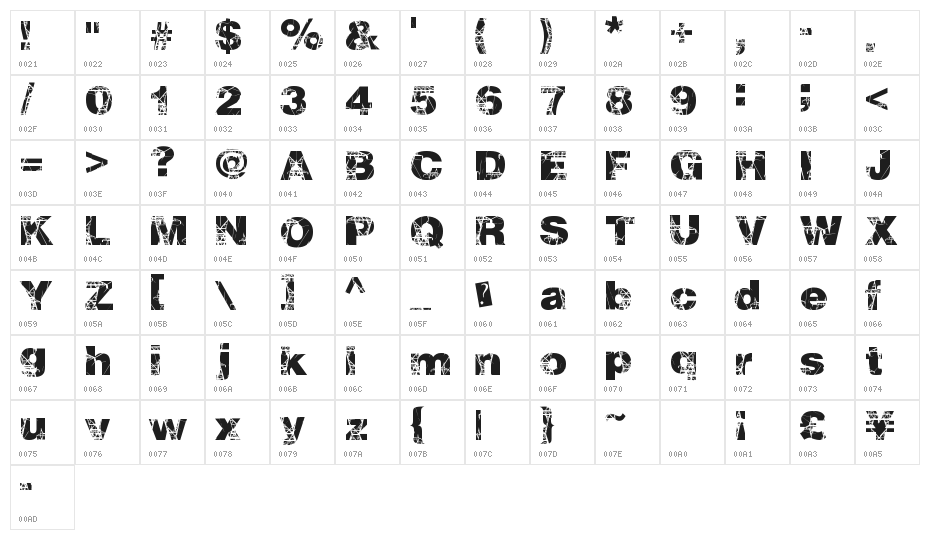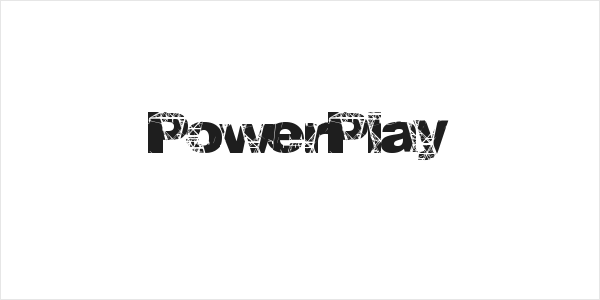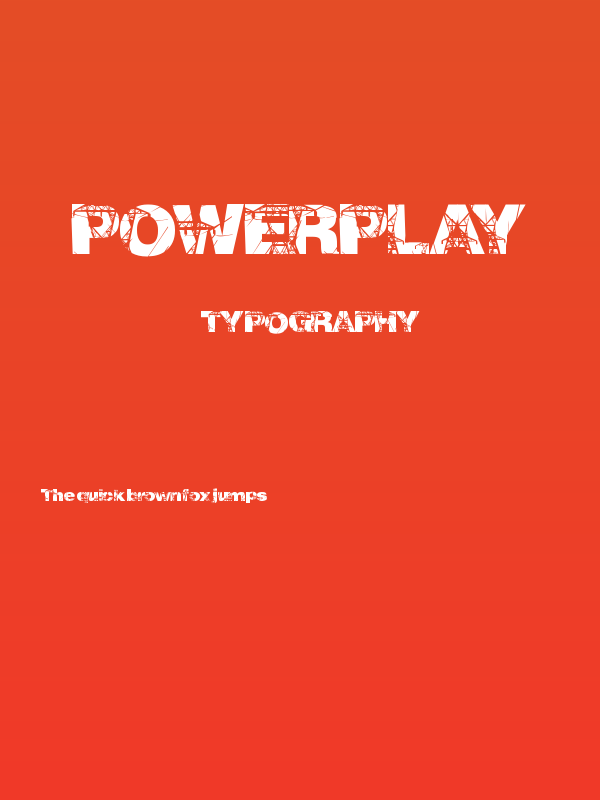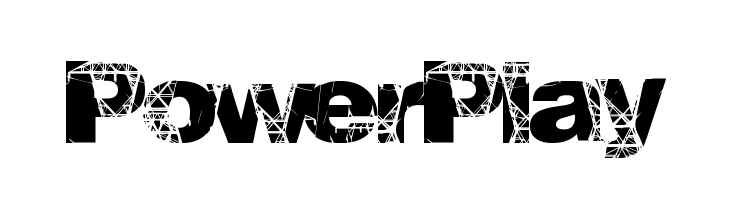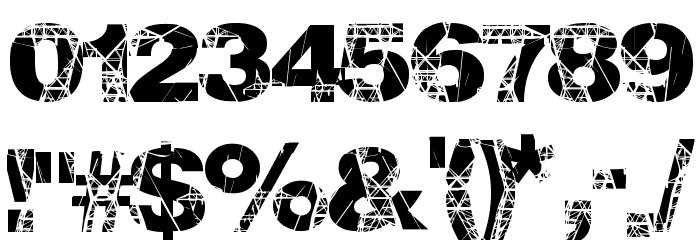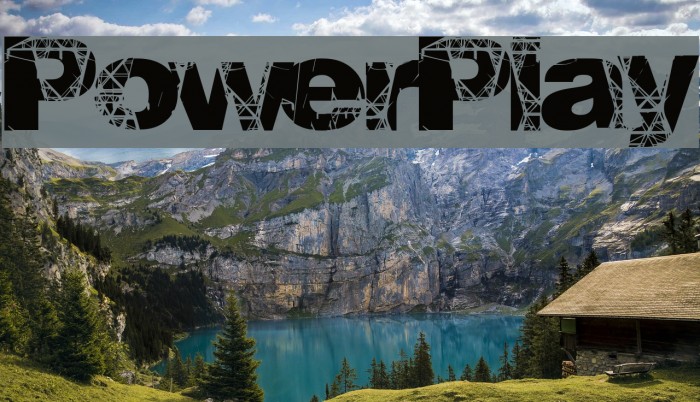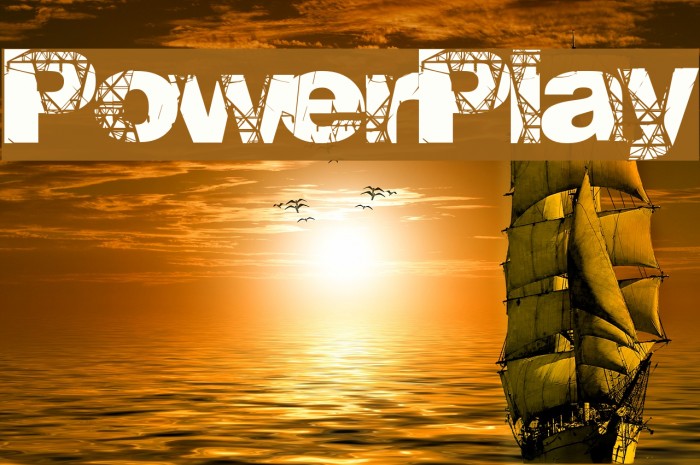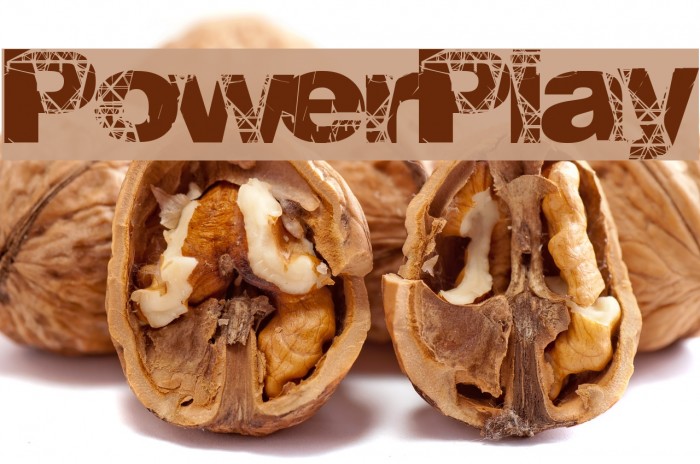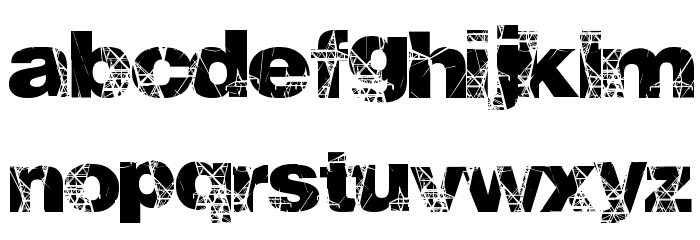
PowerPlay Font
PowerPlay Description
This font features a bold, distressed style with a unique shattered glass effect. Each character is filled with irregular, jagged lines that create a dynamic and edgy appearance. The uppercase and lowercase letters maintain a consistent weight, contributing to a strong visual impact. The numerals and special characters follow the same design, ensuring uniformity across all glyphs. This font's distinctive style makes it ideal for projects that require a bold statement or a gritty, urban aesthetic.
| Proposed Projects | Ideal for album covers, posters, urban-themed branding, and edgy graphic designs. |